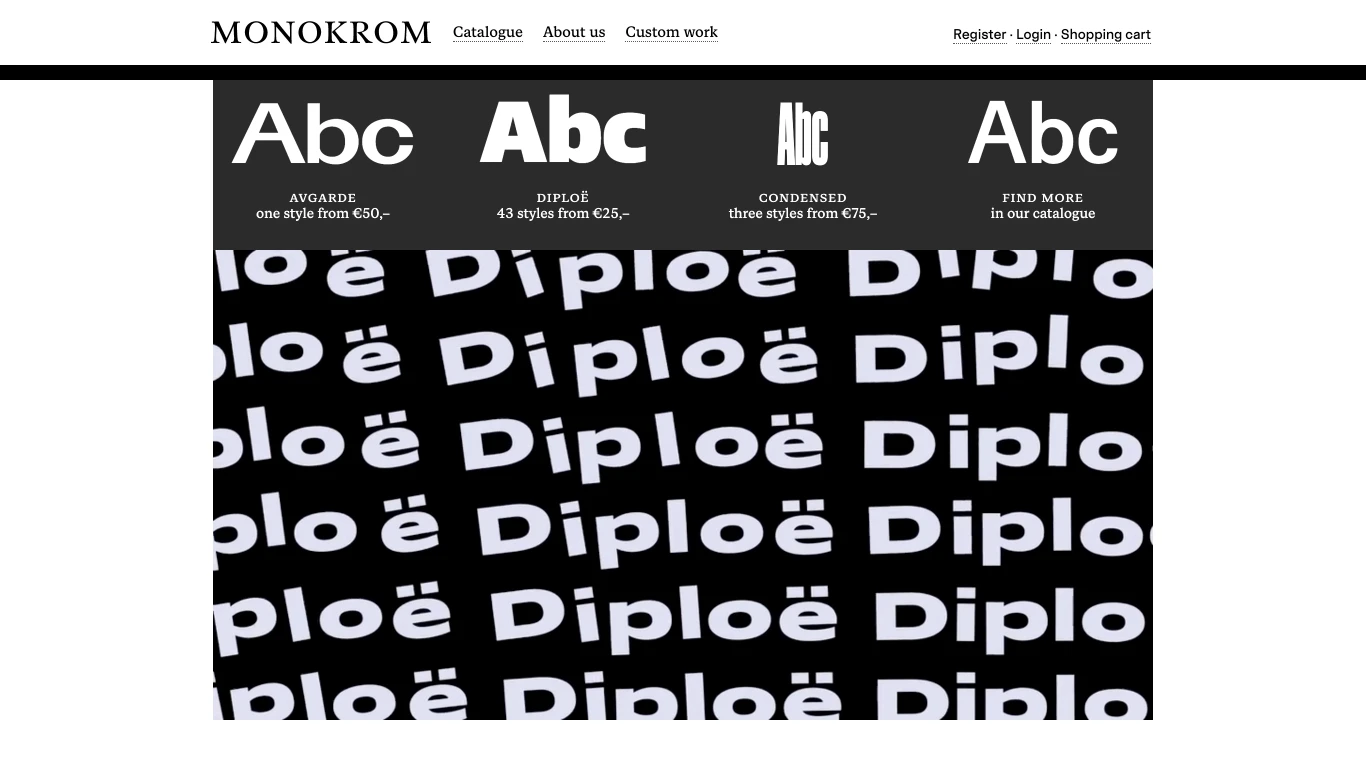
Norway
2012
​Monokrom is an independent type foundry based in Norway, founded by Frode Helland and Sindre Bremnes. Established in 2012, the foundry specializes in high-quality, original typefaces with a distinctive Nordic touch. Notable releases include Diploë, a versatile sans serif family; Motorik, a reinterpretation of the neo-grotesk style; and Avgarde, a playful grotesk inspired by sign painting.